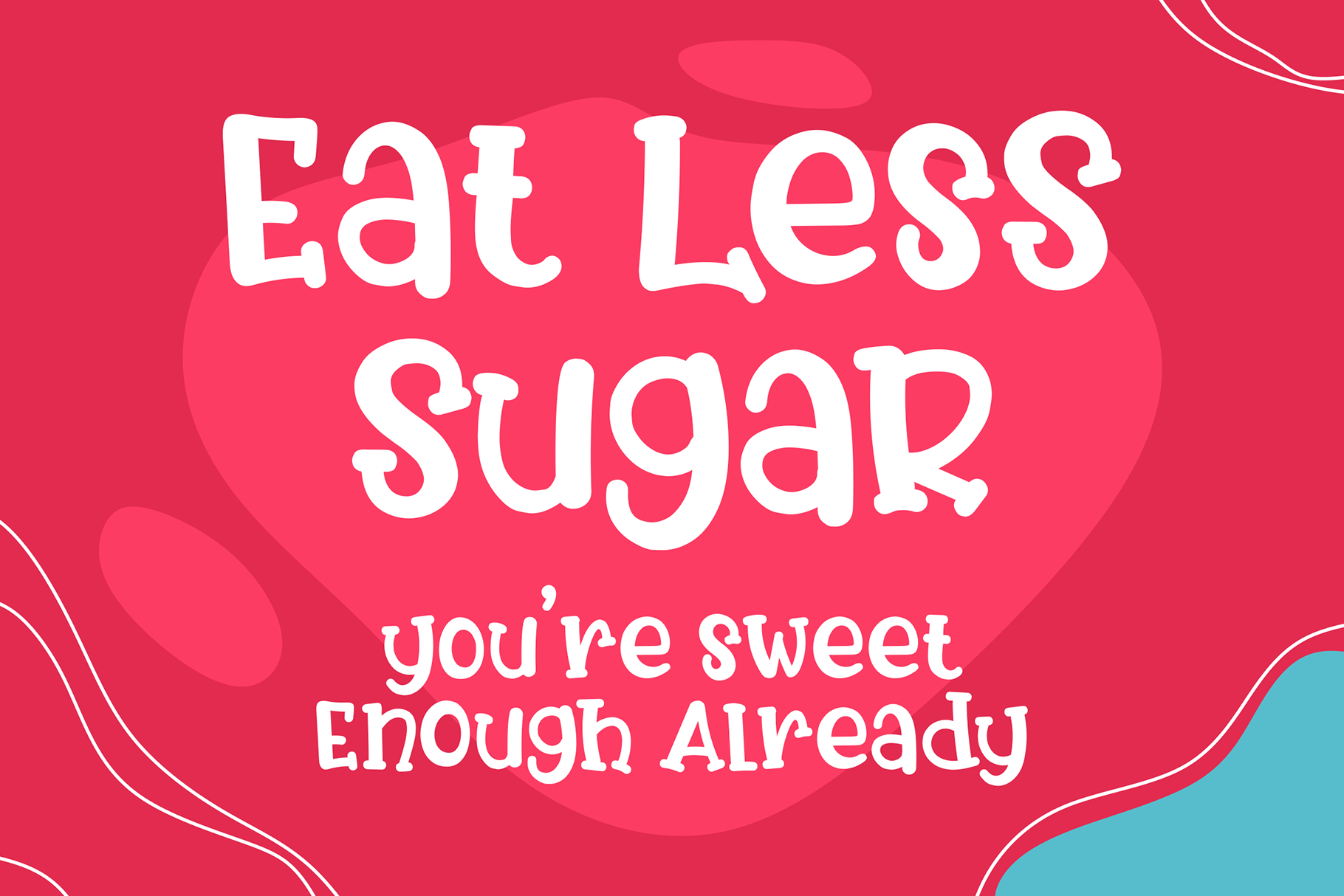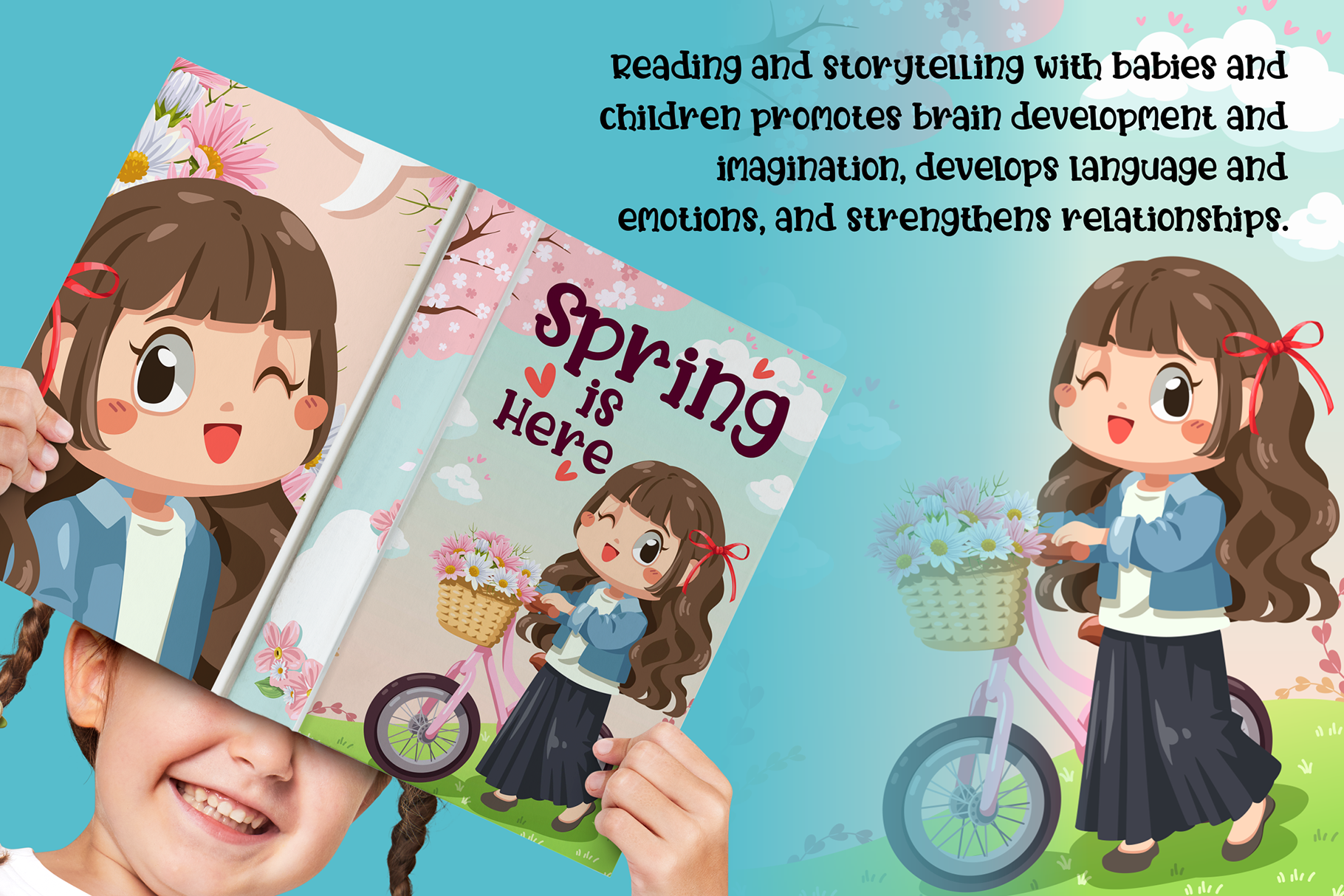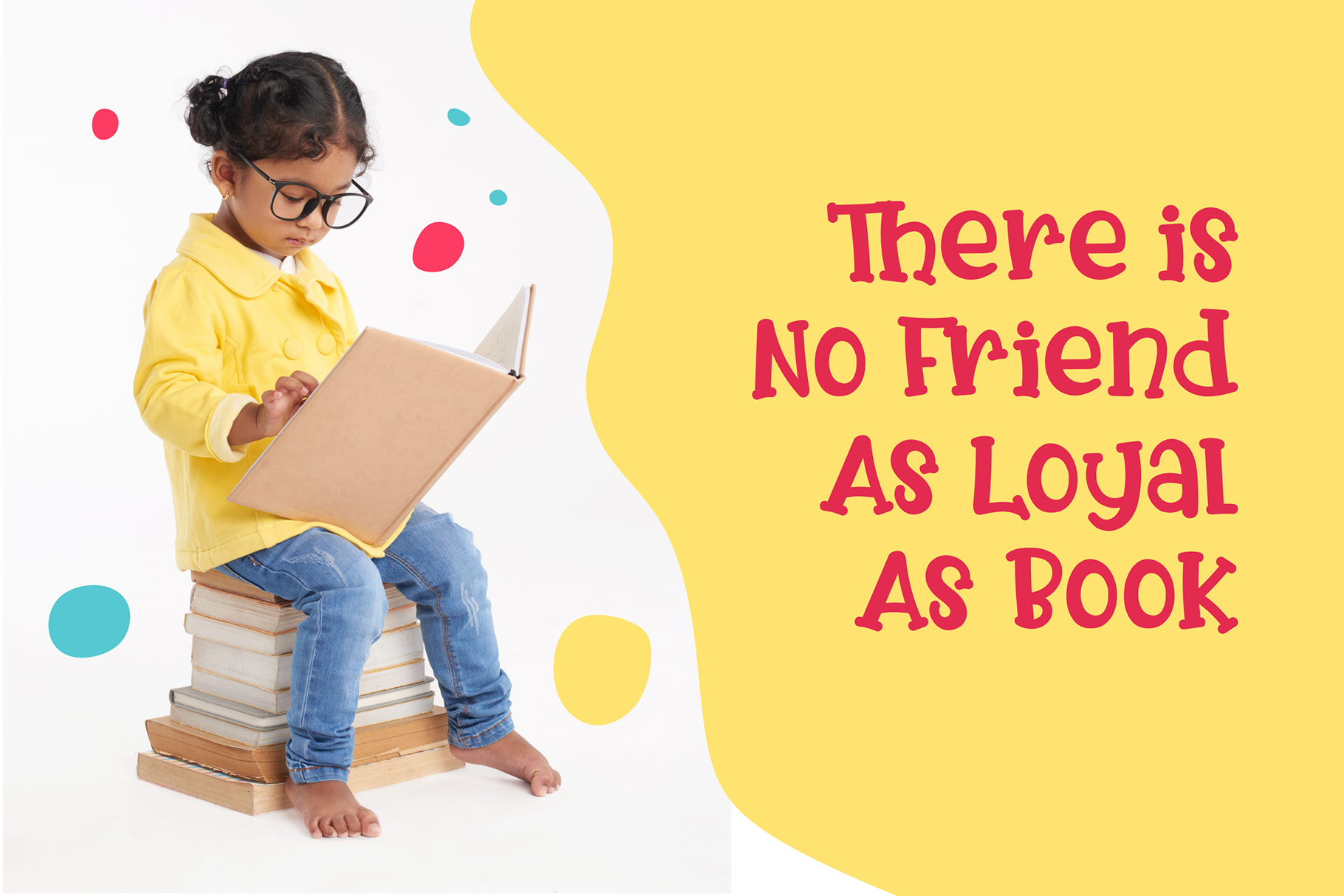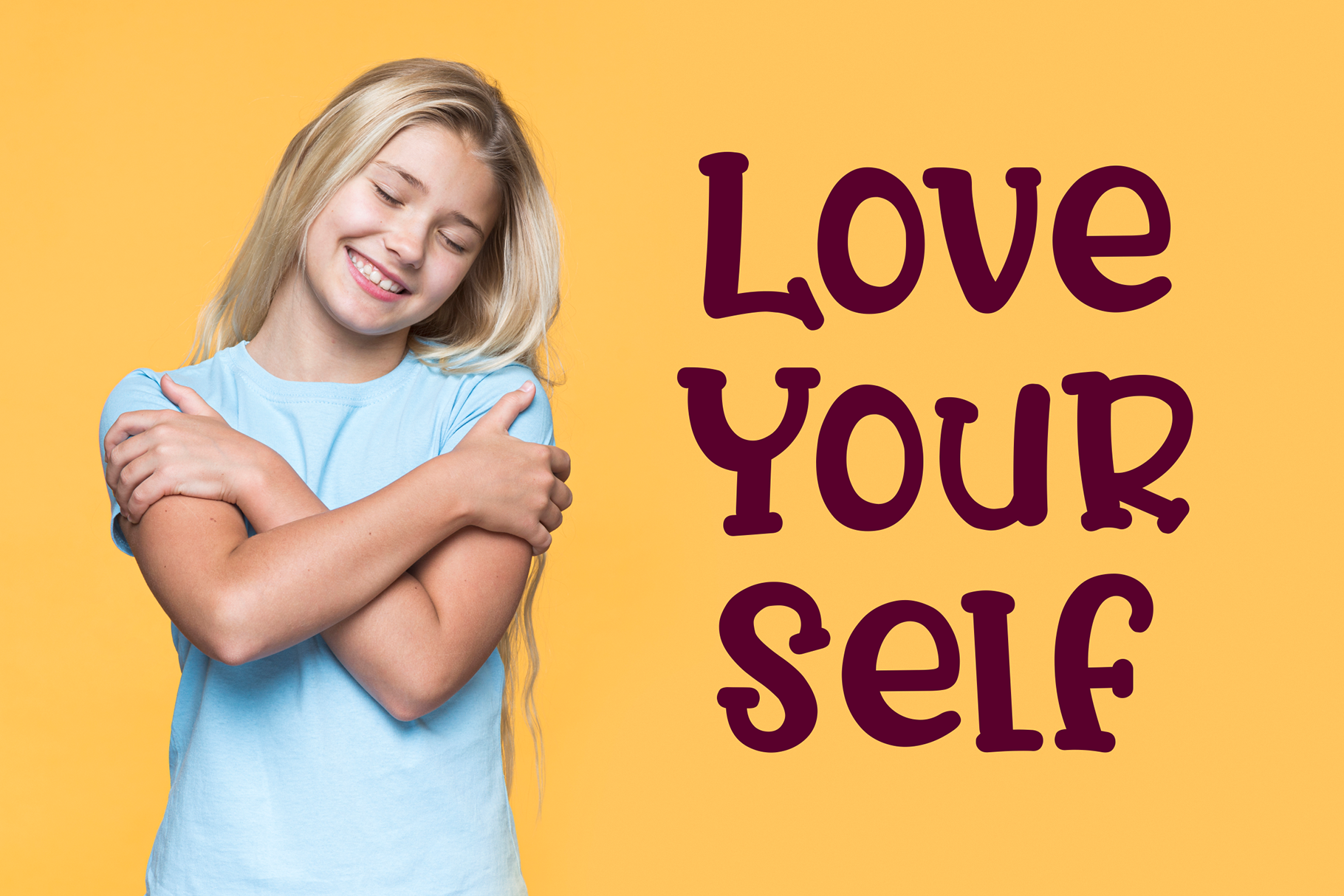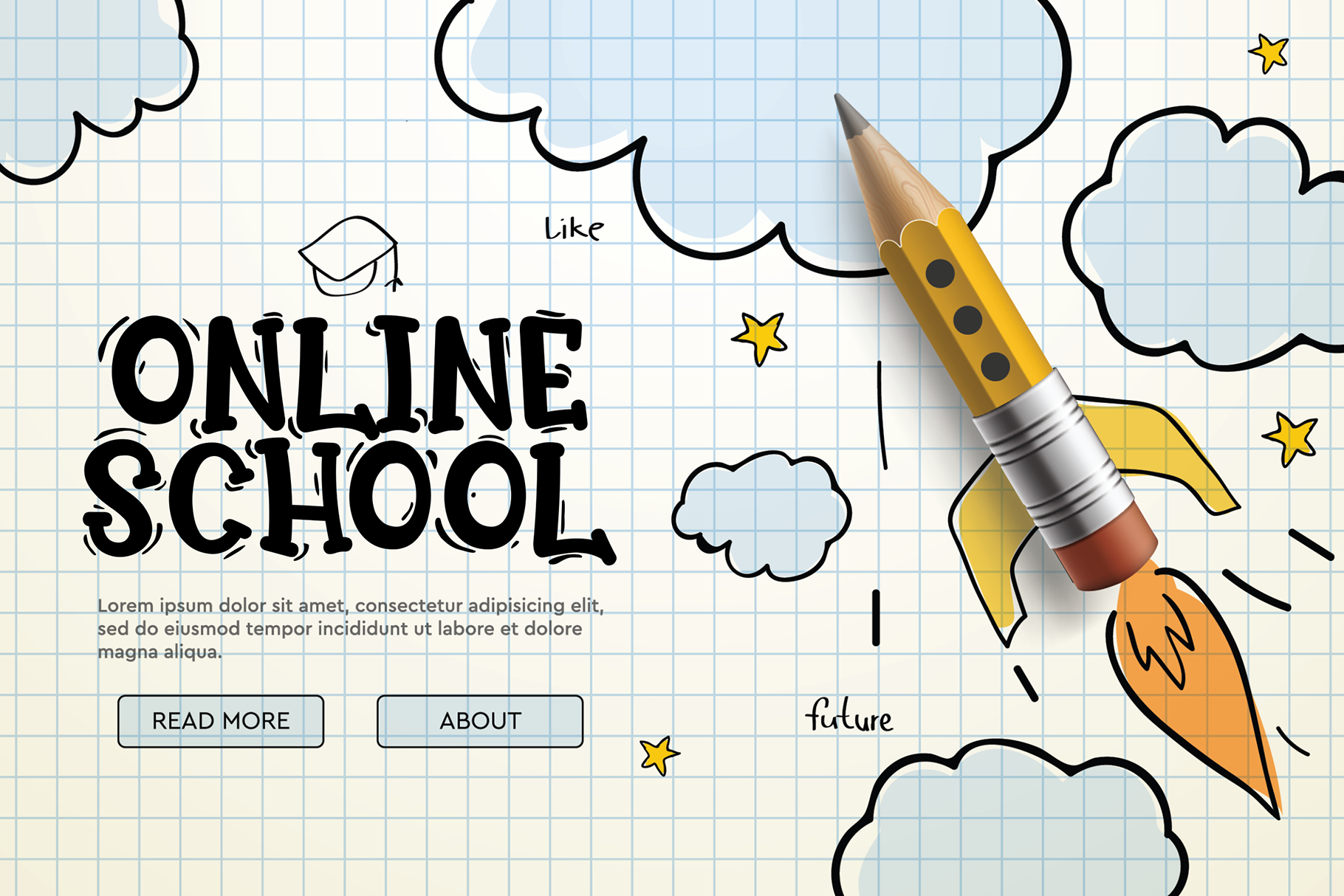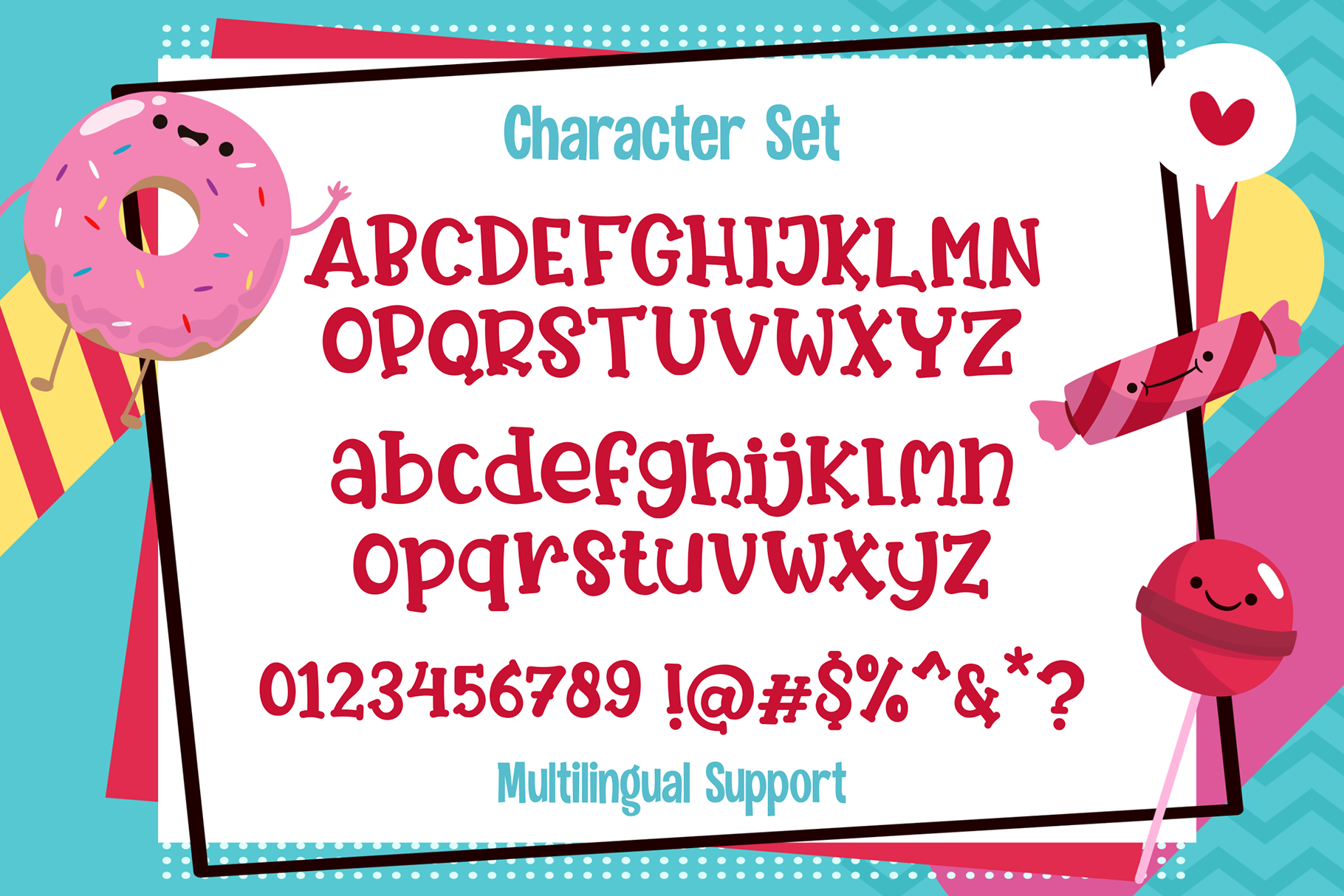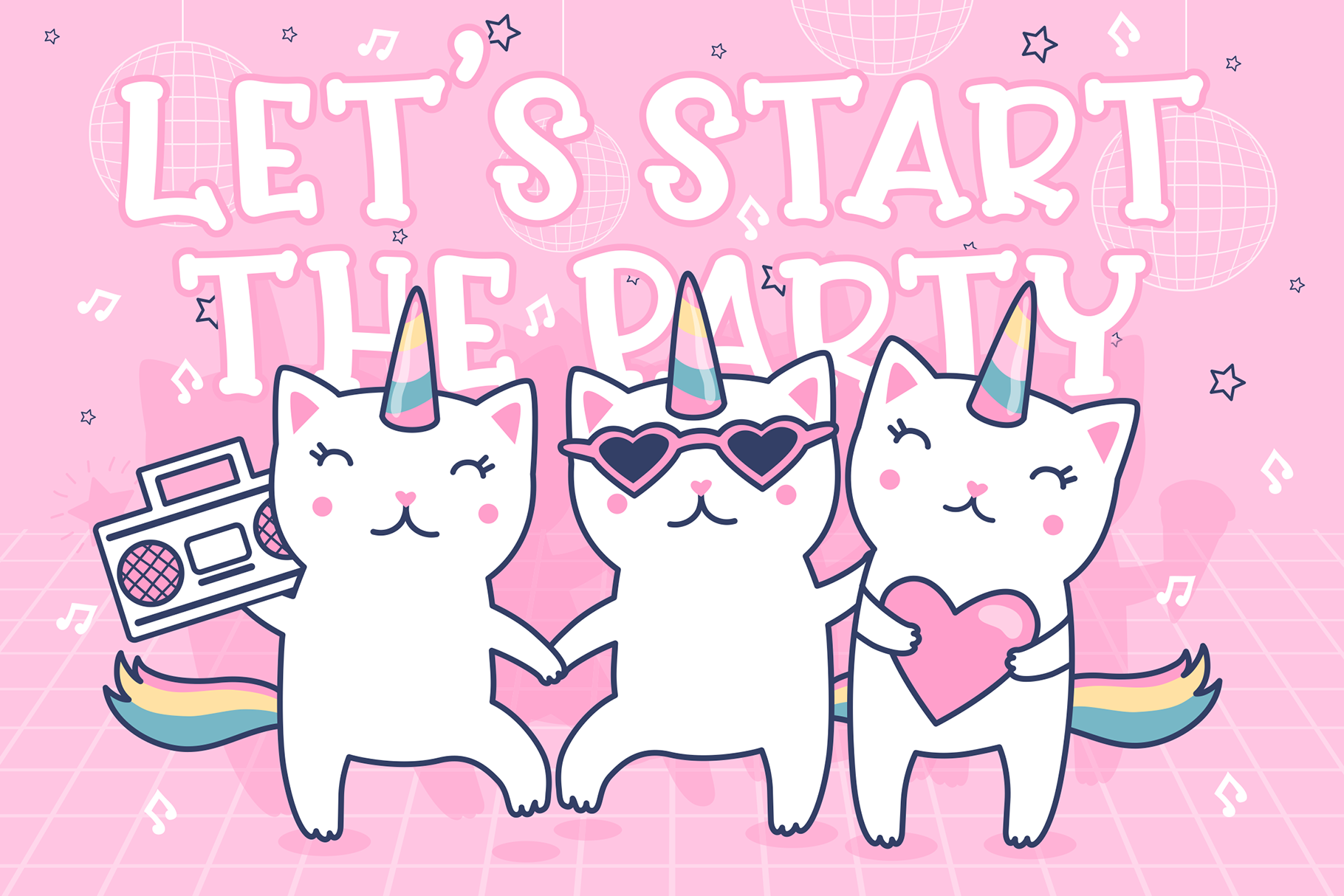
Sugar Babies
Say hello to Sugar Babies font.
Made with love and joy, Kids look, so it will make your design more beautiful, cute, fun, and colorful.
• Uppercase & Lowercase
• Number and Punctuation
• Versatile for branding, headline, or printing product